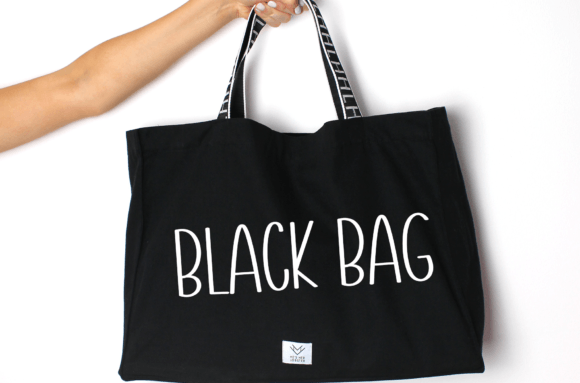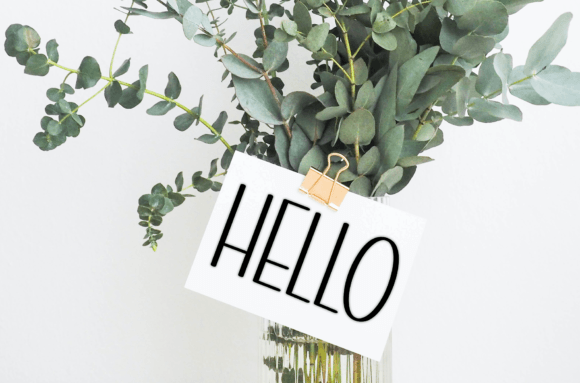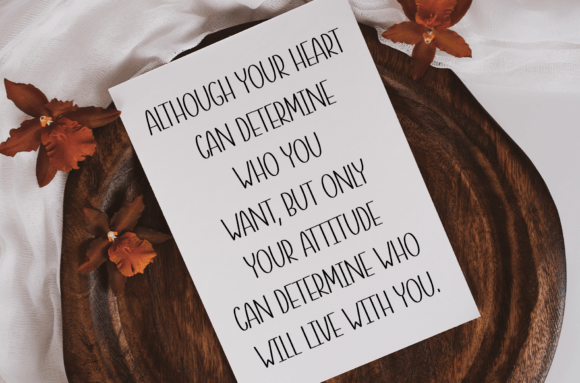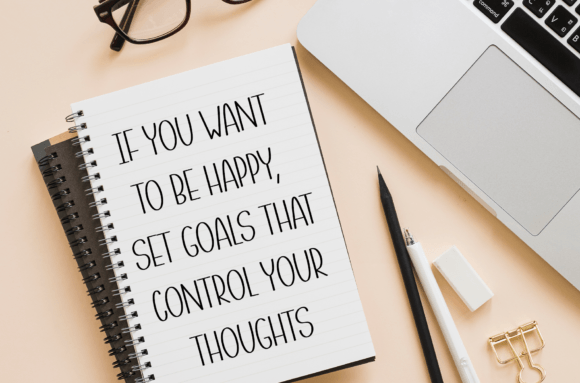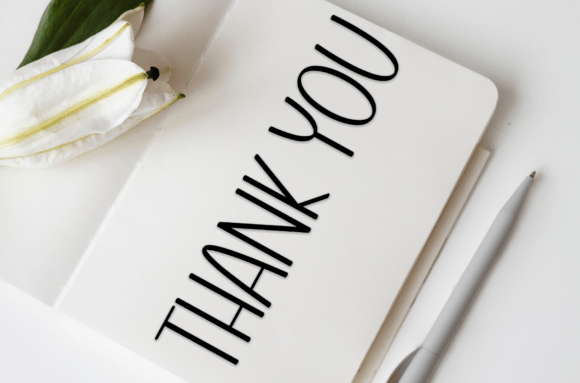
Discover the Charm of Farmhouse Font: Elevate Your Designs with a Cool, Simple, and Playful Handwritten Sans Serif Font
Are you a designer or crafter looking for a font that can add a touch of personality to your creative projects? Look no further than the Farmhouse Font! This cool, simple, and playful handwritten sans serif font is incredibly versatile and can elevate a wide range of designs to new heights. In this article, we’ll explore the features and benefits of Farmhouse Font, and show you how to make the most of this amazing font.
Farmhouse Font is a modern, handwritten sans serif font that exudes a sense of simplicity, playfulness, and charm. Its clean lines, rounded edges, and casual feel make it perfect for a wide range of design applications, from rustic and vintage-inspired projects to modern and minimalist designs. Whether you’re creating a logo, branding materials, social media graphics, or craft projects, Farmhouse Font is sure to add a touch of personality and whimsy.
- Handwritten sans serif font: Farmhouse Font features a unique, handwritten style with a sans serif design, making it both modern and approachable.
- Cool and simple: The font’s clean lines and simple design make it easy to read and versatile enough to use in a variety of contexts.
- Playful and whimsical: Farmhouse Font has a playful, carefree feel that’s perfect for designs that need a touch of personality and charm.
- Incredibly versatile: This font can be used in a wide range of design applications, from logos and branding materials to social media graphics, craft projects, and more.
Benefits of Using Farmhouse Font
So why choose Farmhouse Font for your design projects? Here are just a few benefits of using this amazing font:
- Adds personality to your designs: Farmhouse Font is the perfect way to add a touch of whimsy and charm to your designs, setting them apart from more generic and boring fonts.
- Easy to read: The font’s clean lines and simple design make it easy to read, even at small sizes.
- Versatile: Farmhouse Font can be used in a wide range of design applications, making it a great addition to any designer’s toolkit.
- Perfect for rustic and vintage-inspired designs: The font’s rustic, handmade feel makes it perfect for designs that need a vintage or rustic touch.
How to Use Farmhouse Font in Your Designs
Ready to start using Farmhouse Font in your designs? Here are a few tips to get you started:
- Pair with other fonts: Farmhouse Font pairs well with a variety of other fonts, including serif fonts, script fonts, and other sans serif fonts.
- Use in headings and titles: The font’s bold, playful style makes it perfect for headings and titles.
- Add to logos and branding materials: Farmhouse Font is a great choice for logos and branding materials, adding a touch of personality and whimsy to your brand.
- Use in craft projects: The font’s handmade feel makes it perfect for craft projects, such as handmade cards, invitations, and DIY signs.
Farmhouse Font is a cool, simple, and playful handwritten sans serif font that’s perfect for designers and crafters looking to add a touch of personality to their creative projects. With its clean lines, rounded edges, and casual feel, this font is incredibly versatile and can elevate a wide range of designs to new heights. Whether you’re creating logos, branding materials, social media graphics, or craft projects, Farmhouse Font is sure to become a favorite in your design toolkit.